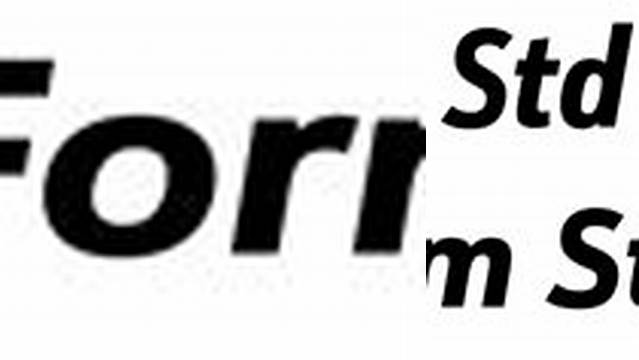
Hey guys! Looking for a super bold and attention-grabbing font? You're in luck! The URW Form Std ExtraBold font is a fantastic choice, and the best part? You can snag it for free download! In this article, we'll dive deep into what makes this font so awesome, where to find it, how to use it, and everything else you need to know to make the most of this fantastic typeface. Let's get started, shall we?
What Makes URW Form Std ExtraBold Special?
Alright, let's talk about why the URW Form Std ExtraBold font is such a popular choice. First off, the name says it all – it's extra bold! This means it's designed to make a statement. It's perfect for headlines, titles, and any text that you want to stand out from the crowd. Think about it: you're scrolling through a website, and you immediately notice the super chunky text. That's the power of an extra bold font like this one. It grabs your attention instantly. It is like a visual shout, a way of saying, "Hey, look at me!" This makes it ideal for things like posters, banners, and any other design where you want to make sure your message gets noticed. The URW Form Std ExtraBold font is not just about being bold, it's about being legible, too. Despite its thickness, the design is clean and easy to read, even at larger sizes. This means you don't have to sacrifice readability for impact. That’s a huge win. This font strikes the right balance between being strong and easy to understand. Another thing that makes this font special is its versatility. While it's great for headlines, it can also be used sparingly in body text to emphasize certain words or phrases. This can add a touch of visual interest to your design without overwhelming the reader. You can play with it and be creative. Try it on different projects and see how it works for you. Different projects may require different approaches. This is where the URW Form Std ExtraBold font shines! It is a workhorse that can be used in many different contexts and still get the job done. The character design also plays a big role in its appeal. The letters are carefully crafted to maintain clarity and style, even in bold weights. The proportions are balanced to ensure that the font looks aesthetically pleasing in different formats. Overall, this font is more than just a typeface; it's a design tool. It’s the perfect choice if you want to make a bold statement. It’s versatile, legible, and visually appealing. This font will definitely level up your projects.